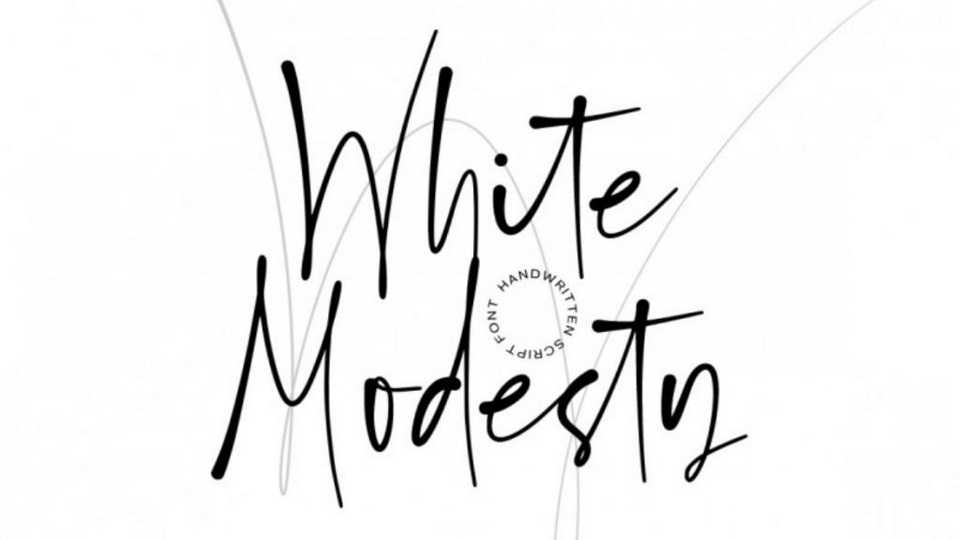
White Modesty Font › Fontesk
Download White Modesty ifont, a casual and free-flowing handwritten script. Its beautiful and relaxed characters make White Modesty perfect to be used in a wide range of designs.